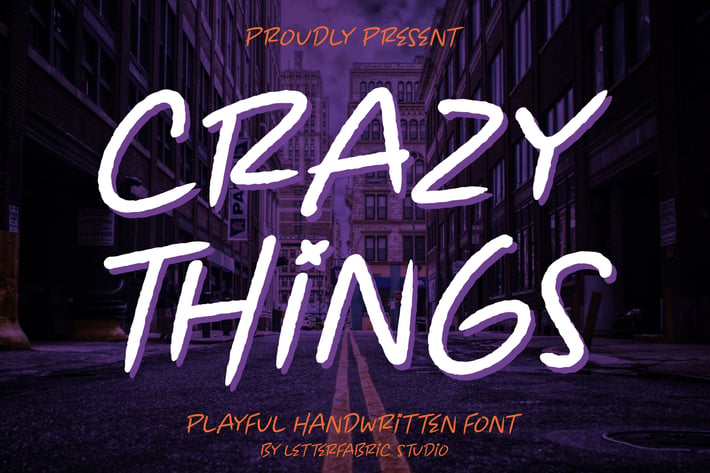
Crazy Things Playful Handwritten Font
Crazy Things is a playful handwritten font full of fun, energy, and youthful personality. Designed with smooth strokes and casual rhythm, this font perfectly captures a carefree and expressive vibe — ideal for projects that celebrate creativity, freedom, and individuality.
Playful handwritten design with organic flow
Smooth and clean letterforms with a natural brush feel
Balanced spacing for great readability in both short and long text
Posters and social media graphics
Branding and logo design
Lifestyle, music, or youth culture projects
Apparel design and merchandise
Creative titles, invitations, and personal projects
Playful, bold, and full of life — Crazy Things brings fun energy and personality to every design it touches.